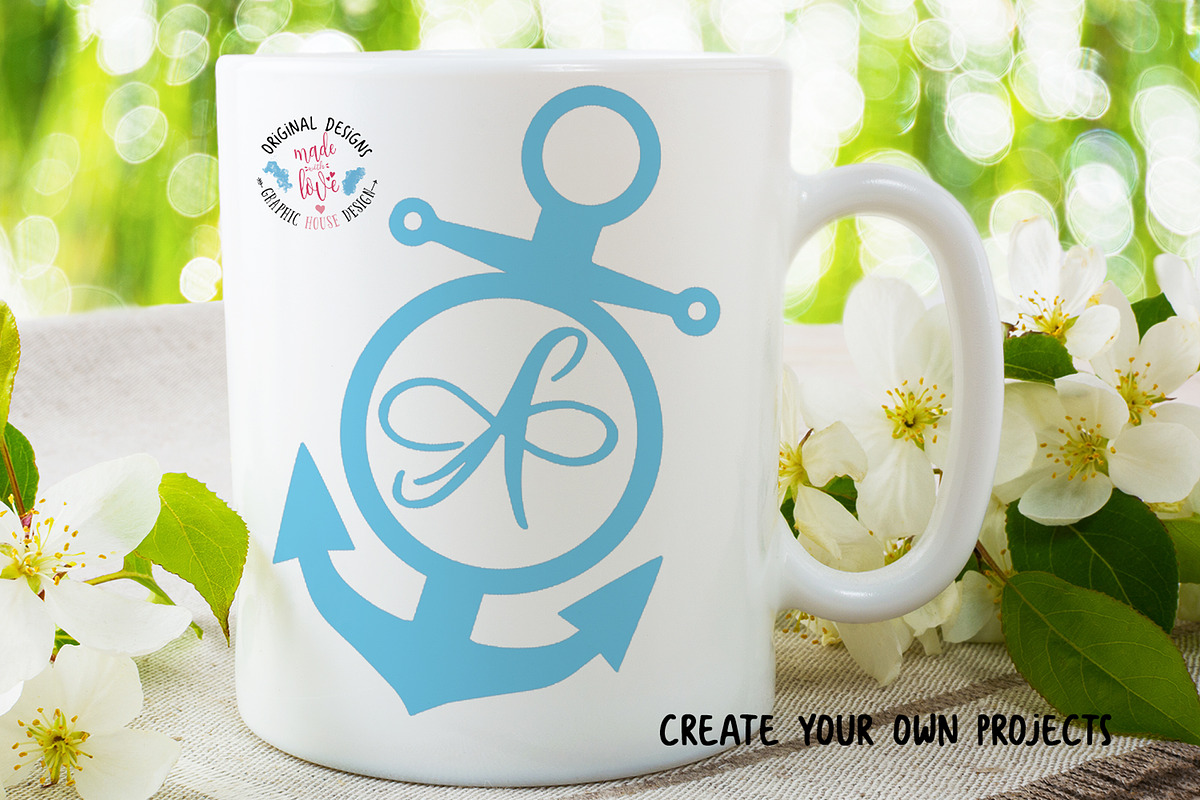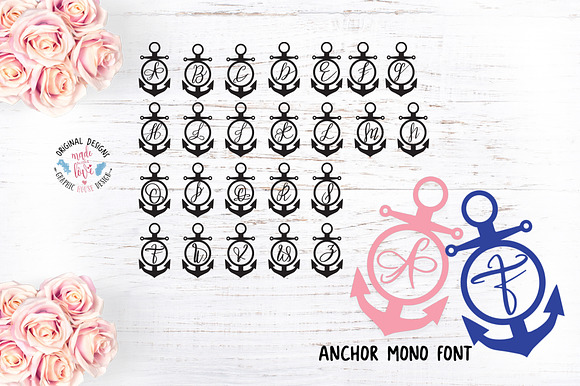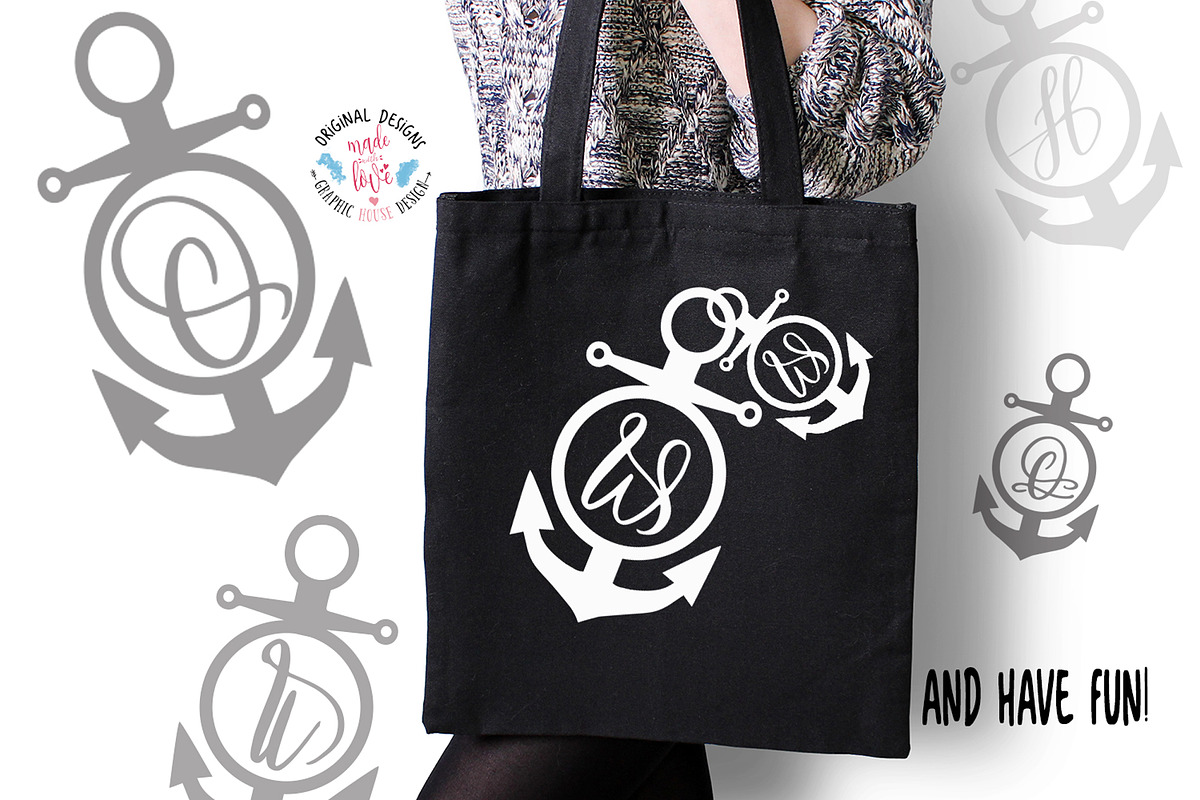
Anchor Mono Font
Anchor Mono is a Decorative Font ideal to Create Monograms and Initials.
Turn to Vector and combine anchors together to create your own design.
Anchor Mono Font by Graphic House Design P.C fits naturally into Branding, posters, packaging, typography.